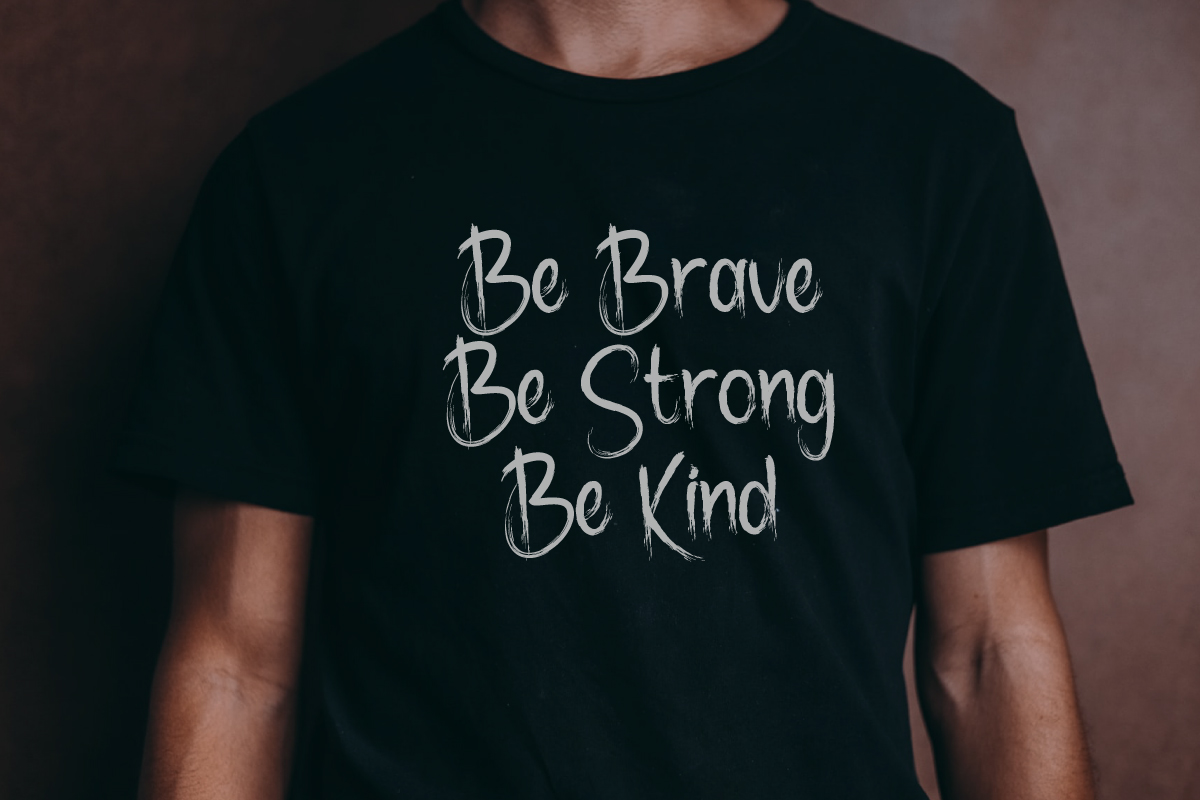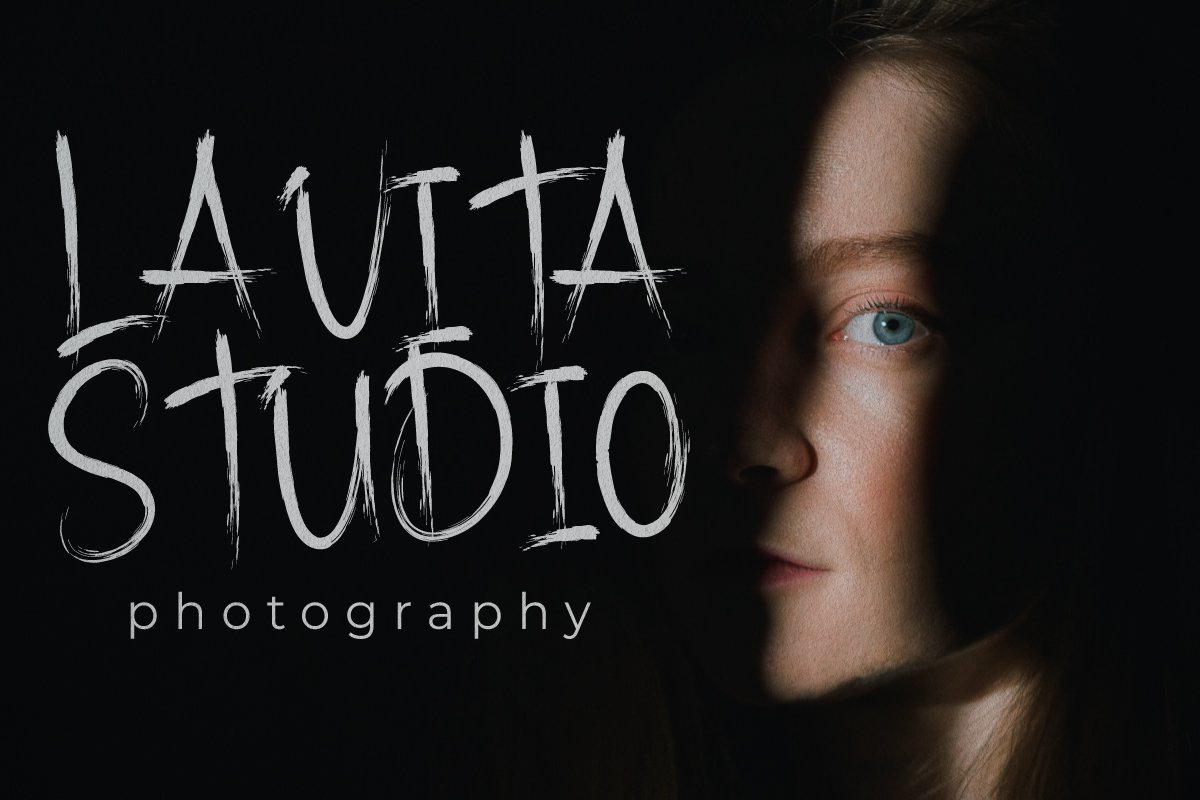
Dry Paint Font
Dry Paint Brush Font
This font is remotely made in Bandung and Garut, Indonesia. The font was handcrafted for any your special projects including : headlines, promotion, events, branding, advertising, magazine, signage, invitation, stationery, social media posts, label, or and any projects that need unique strong style. The theme/industries of this font is Horror, Movie, Game, Magazine, Music, Video, Sports, Racing etc